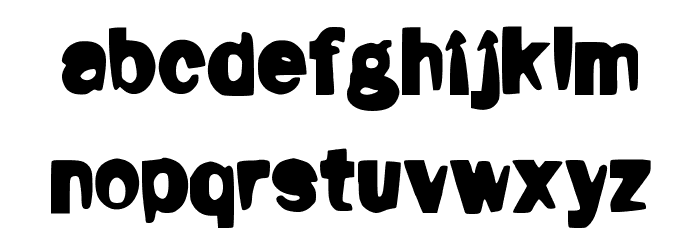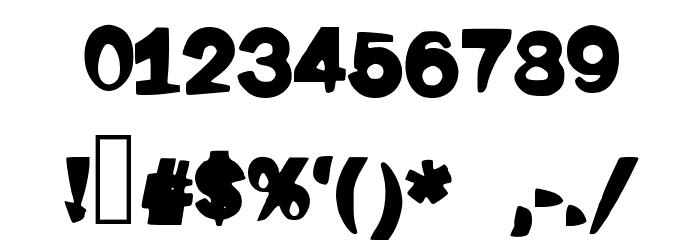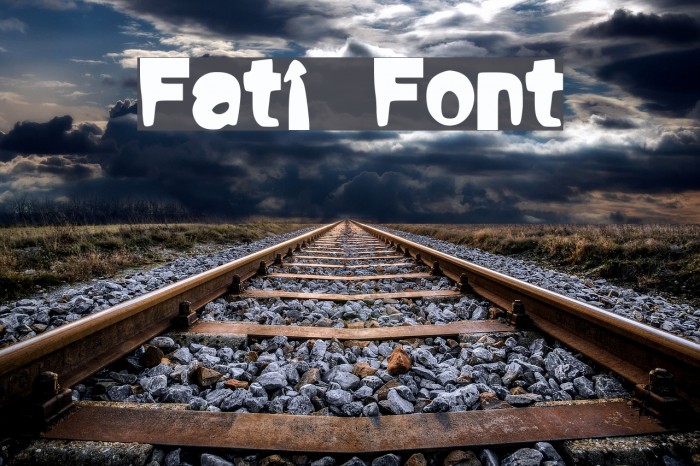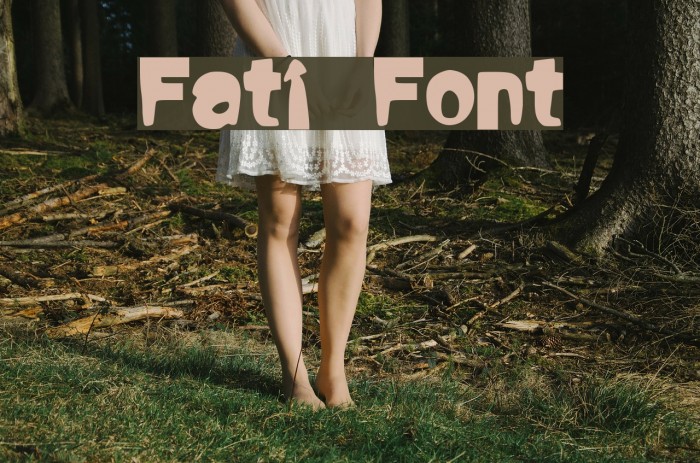
Fati Font
This font features a playful and bold style with exaggerated curves and a slightly irregular baseline, giving it a whimsical and dynamic appearance. The characters are thick and rounded, with a strong presence that makes them stand out. The uppercase and lowercase letters maintain a consistent weight, while the numbers and special characters follow the same bold and playful design. This font is ideal for projects that require a fun and engaging look, such as children's books, posters, or playful branding materials.
A bold, playful font with rounded, exaggerated curves and a whimsical style.
- Proposed Projects: Ideal for children's books, playful posters, and fun branding materials.
- Overall Style: Playful, Whimsical